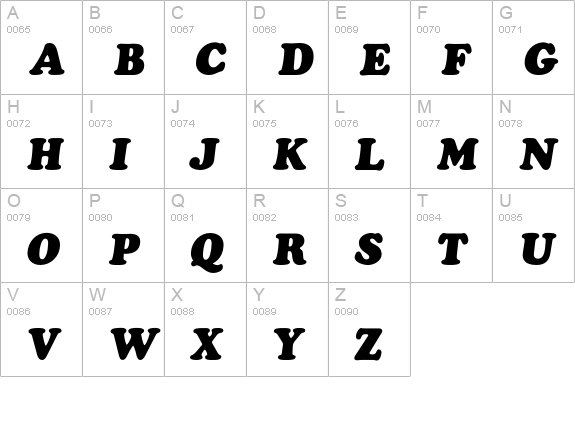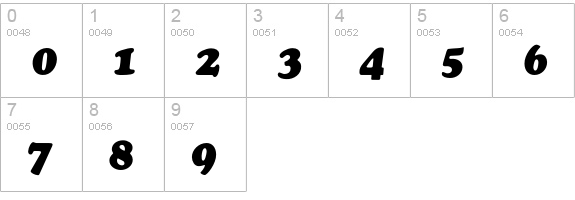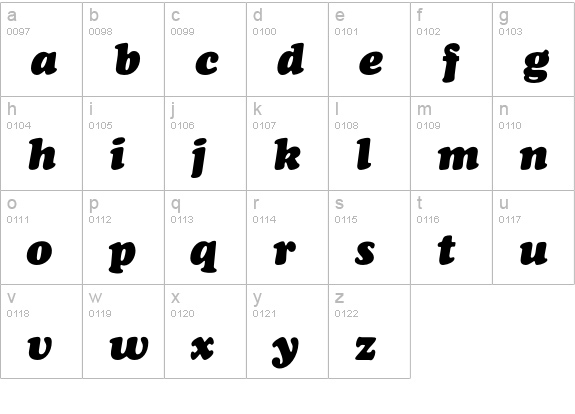
CooperBlackItalic Font Details
CooperBlackItalic font is a stylish and sophisticated typeface that exudes elegance and charm. Its slanted italic design adds a touch of flair to any text, making it perfect for adding a touch of class to your projects. The sleek curves and bold lines of CooperBlackItalic font make it an eye-catching choice for headings, logos, and other design elements. The best part? CooperBlackItalic font is completely free to download at FontsMarket.com. Whether you're working on a professional project or simply looking to add a touch of sophistication to your personal designs, CooperBlackItalic font is the perfect choice. Download it today and elevate your typography game to the next level.